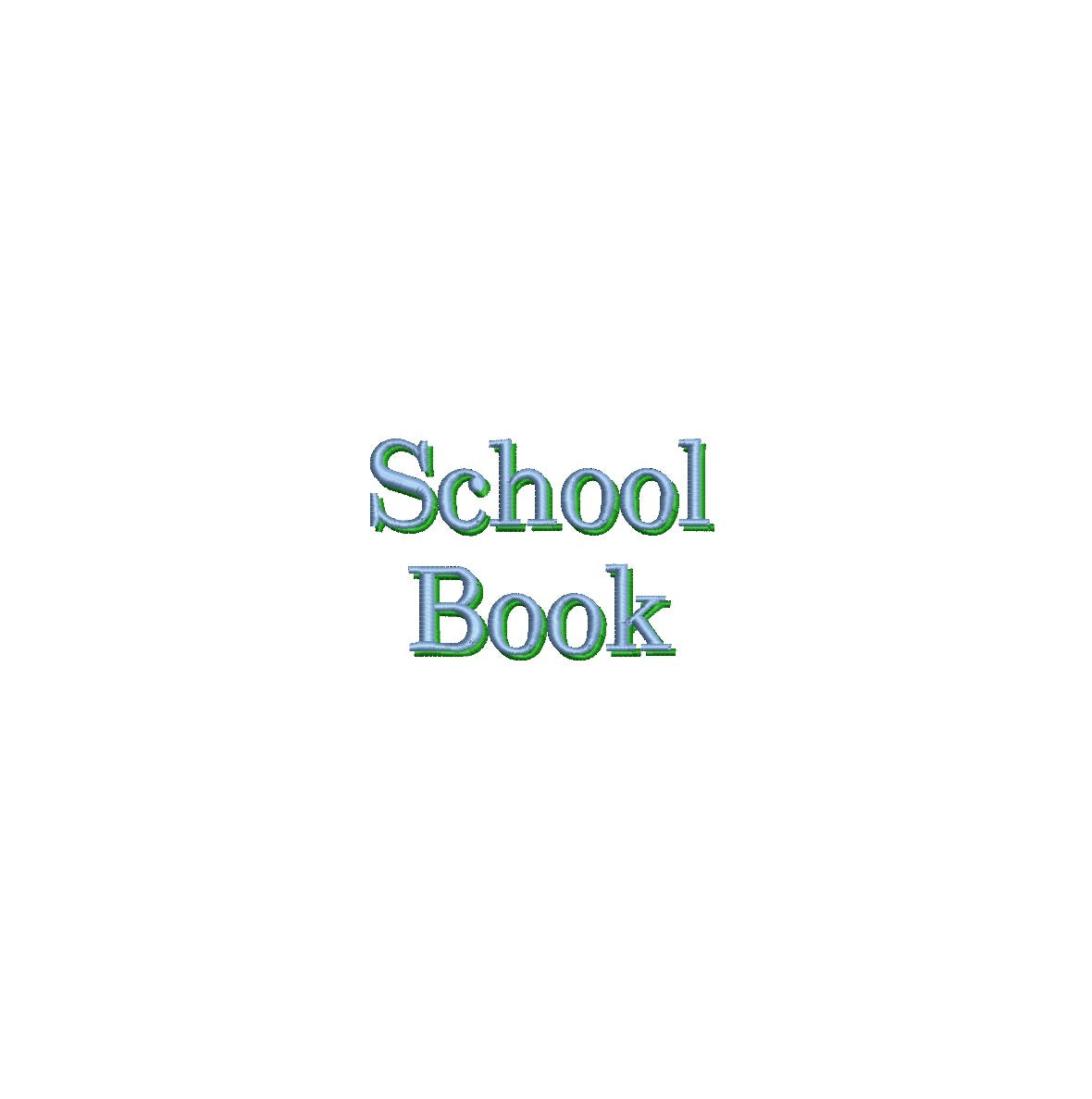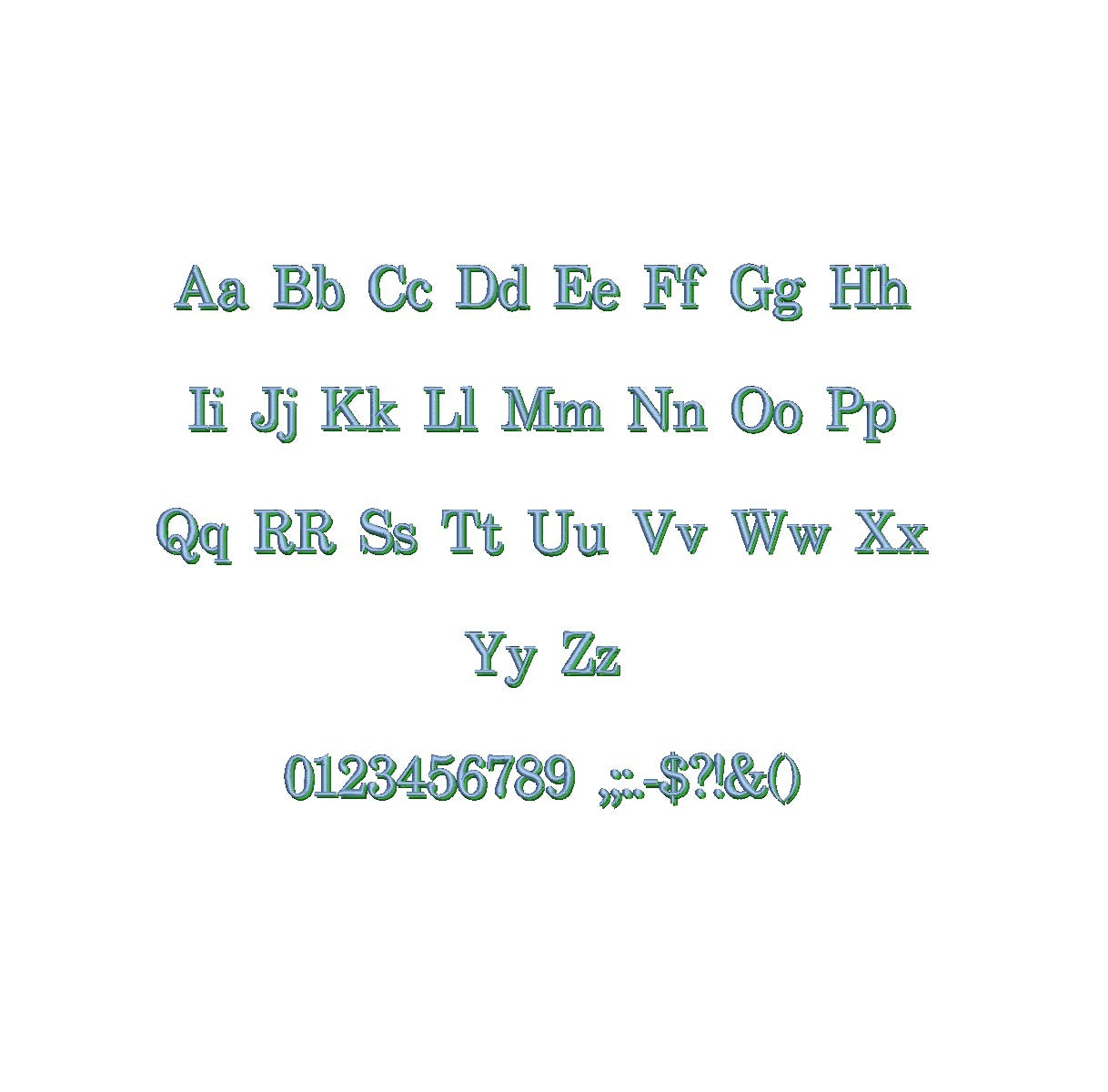
Schoolbook Shadow ESA font
Elevate your embroidery with the classic Schoolbook Shadow ESA font. Designed for Wilcom Studio e4.5.6 and Hatch 3 versions and newer, this font seamlessly marries tradition and compatibility. Craft distinctive designs using its shadow effect, adding depth and character to your lettering. Ideal for various applications, from educational projects to timeless text layouts. Effortlessly express your creativity as Schoolbook Shadow ESA font enriches your embroidery. Elevate your designs and make a lasting impact. Choose this font to infuse your creations with a touch of timeless elegance that stands out.